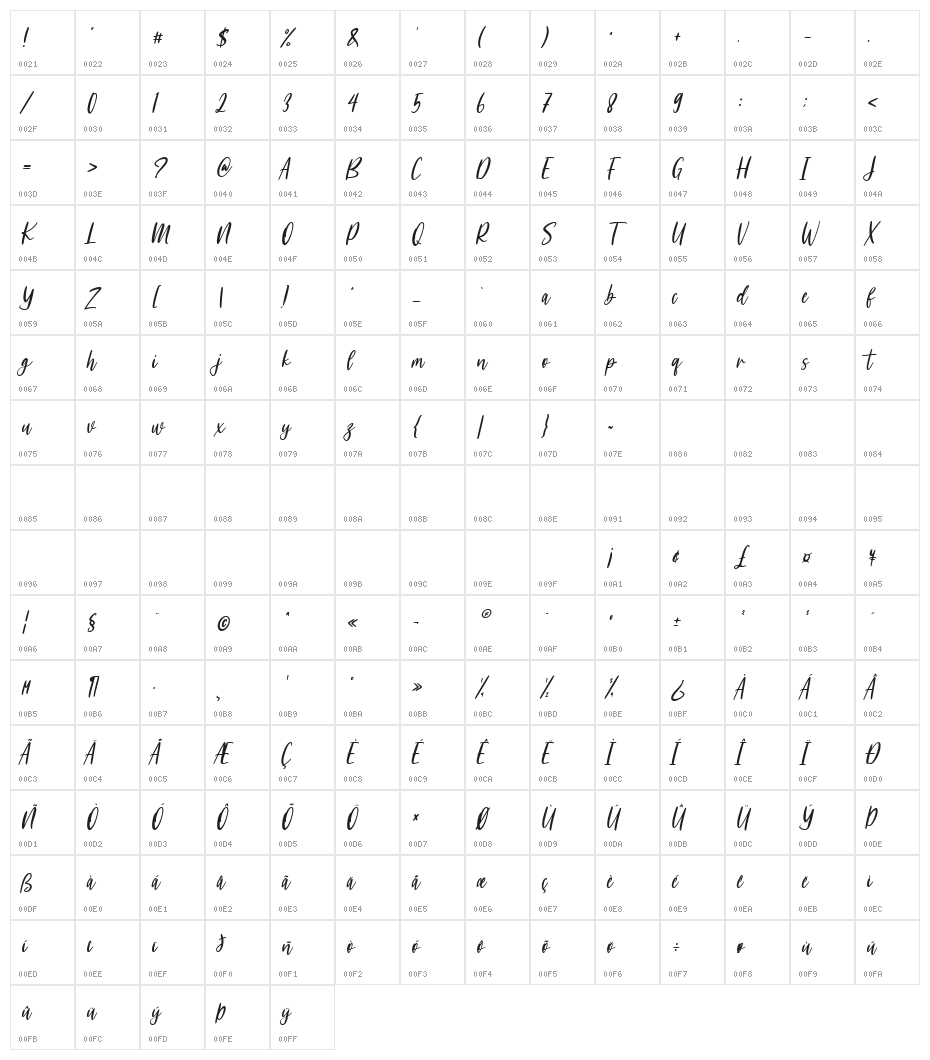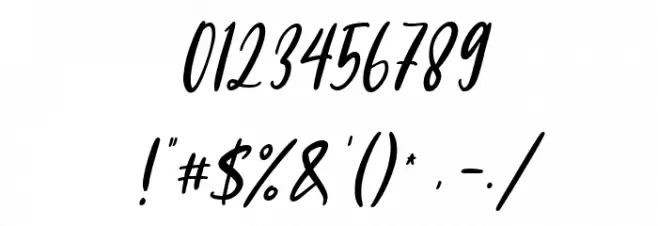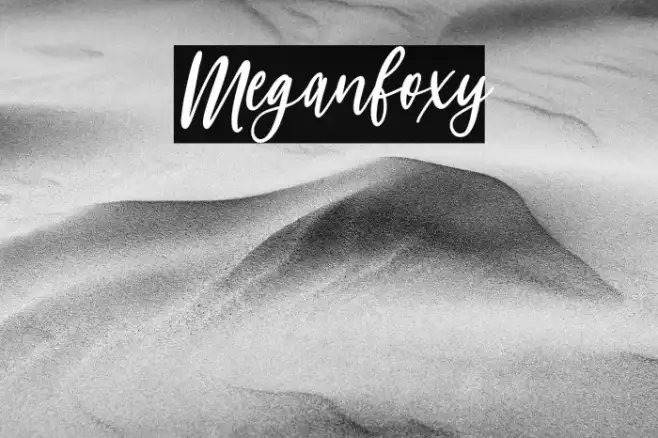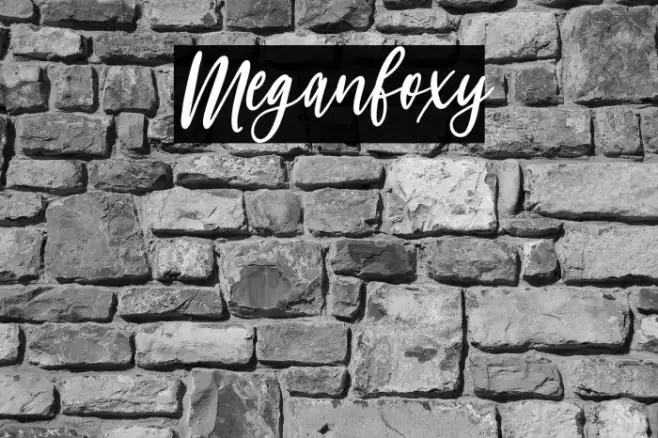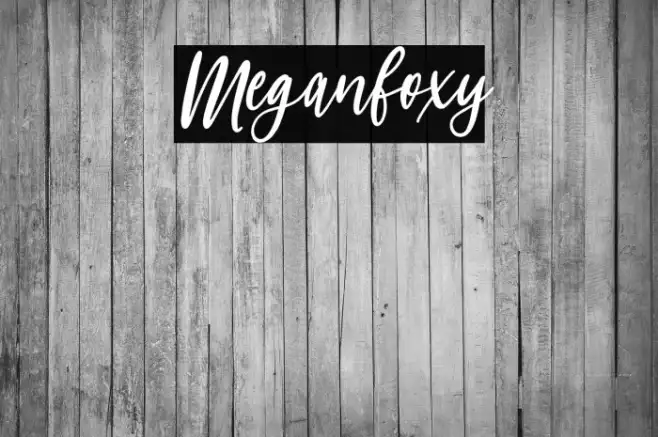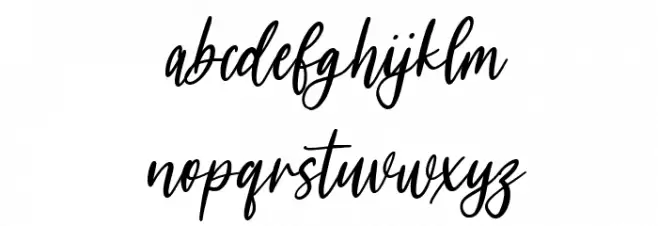
Meganfoxy Font
A stylish, flowing script font with a handwritten feel, featuring smooth curves and varying stroke widths.
| Use Case | Logos, Headlines |
| Proposed Projects | Invitations, greeting cards, branding. |